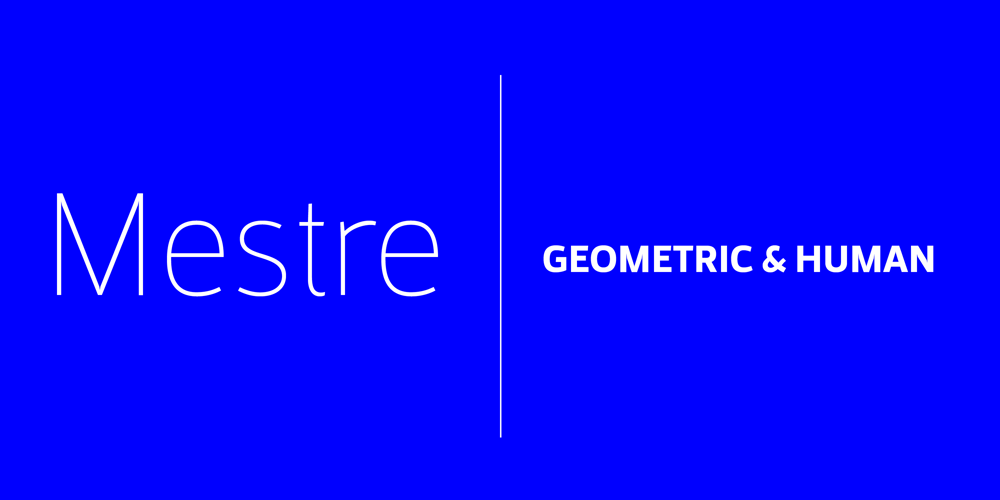
Mestre Font Family was designed by Pedro Arilla and published by Tipotecture. Mestre contains 16 styles and family package options. Mestre is a German & Dutch inspired geometric sans-serif designed. Its solid and formal shapes are embedded with a discreet humanist flair resulting in a very versatile contemporary hybrid and a highly functional and flexible font for many of today’s branding & UX requirements. With its rational forms and its large x-height, Mestre is perfect for long texts in small sizes allowing a comfortable reading. Its open forms, moderate & balanced proportions, neutral appearance and solid structure grant a high legibility on paper and on screens. With its extensive 8 weights and corresponding true italics, more than 900 glyphs per font, extended character set to support Central and Eastern European as well as Western European languages and a wide OpenType features set (small caps, case-sensitive forms, lining, tabular & old-style figures, scientific superior/inferior figures, fractions, a set of arrows, etcetera) it is meant to build visual hierarchies of any detail and complexity in editorial design or deliver the best performance for branding purposes. Mestre is a great choice for modern, contemporary and professional typography.